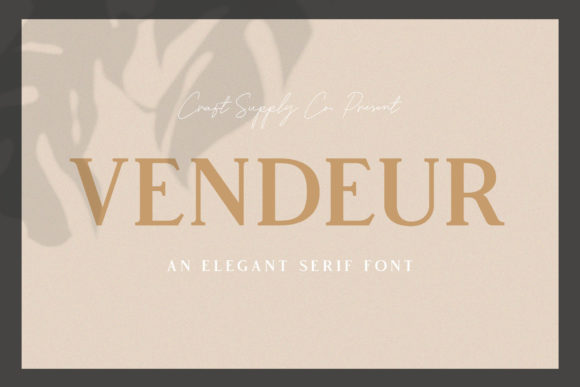
Behold Vendeur Font, a serif font family designed to resonate with timeless grace and modern simplicity. Created by the skillful hands at craftsupplyco, Vendeur Font is an exquisite masterpiece that embodies elegance and sophistication in every letterform. Its classy and delicate nature adds a touch of classicism to any design, making it an ideal choice for those seeking to convey a sense of heritage and refinement.
Immerse yourself in the world of Vendeur Font and discover a world of creative possibilities. Its smooth, flowing lines and elegant curves evoke a sense of timeless beauty, while its modern simplicity ensures readability and versatility across a wide range of applications. Whether you're crafting invitations, designing logos, or creating marketing materials, Vendeur Font will elevate your designs with its effortless charm.
With Vendeur Font, you'll experience the essence of serif fonts at their finest. Its distinct serifs add a touch of sophistication and authority, while its carefully crafted letterforms exude a sense of balance and harmony. This font family is a true work of art, meticulously designed to enhance the visual appeal of any project.
Unleash your creativity with Vendeur Font and embark on a journey of design excellence. Its timeless aesthetic and modern simplicity make it the perfect choice for designers and creatives seeking to create captivating designs that stand the test of time. Let Vendeur Font be your muse and watch as your designs transform into works of art.